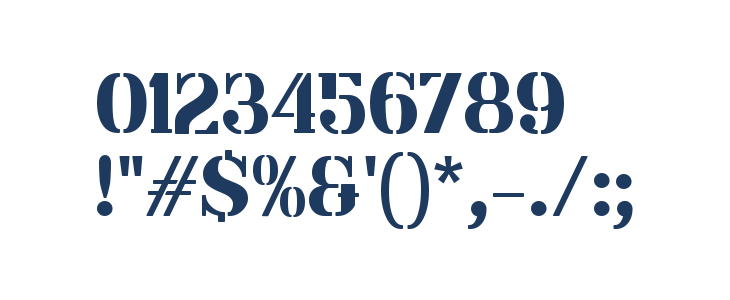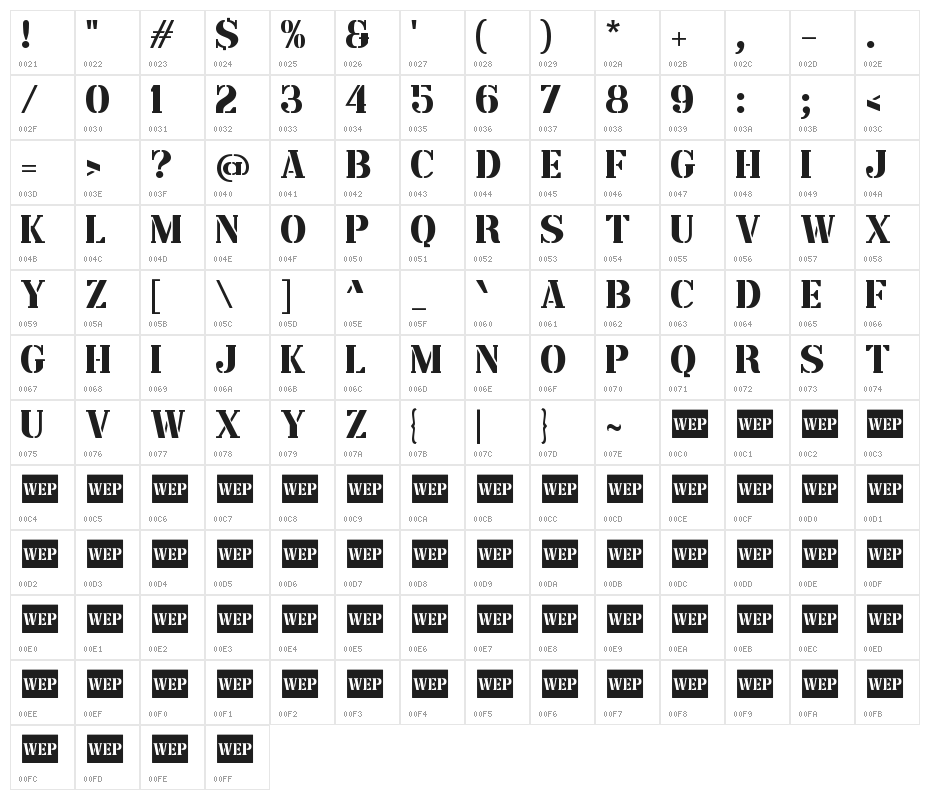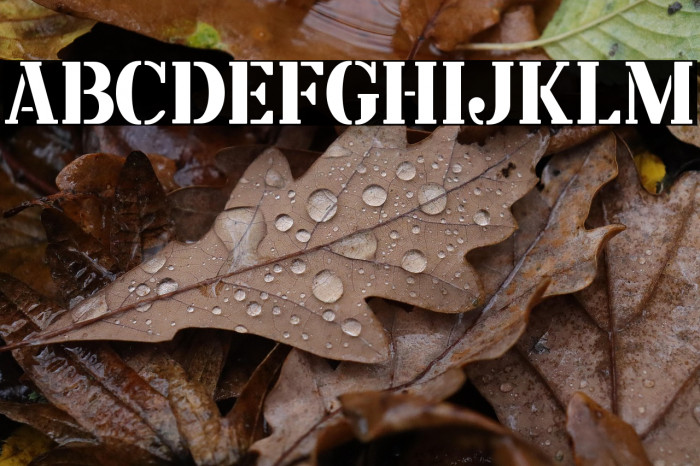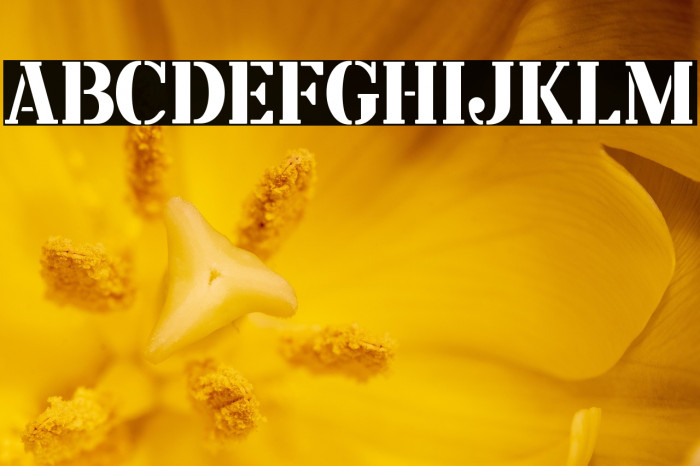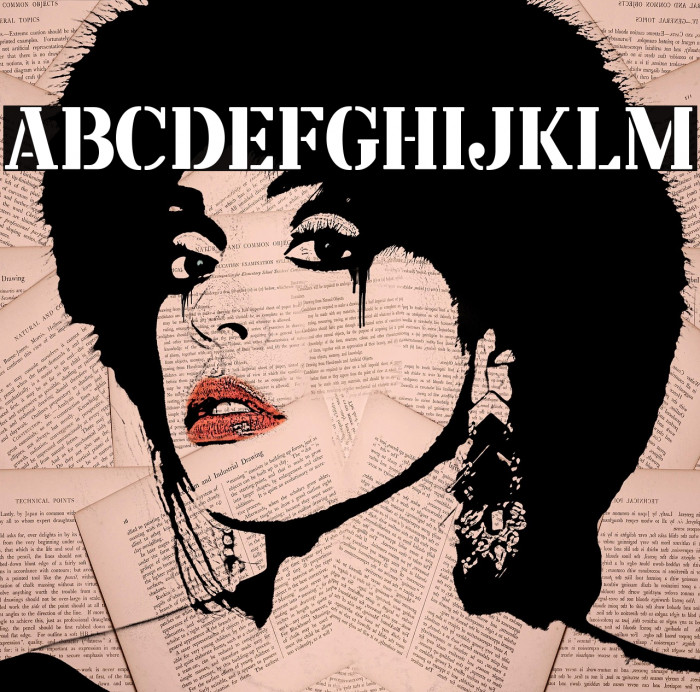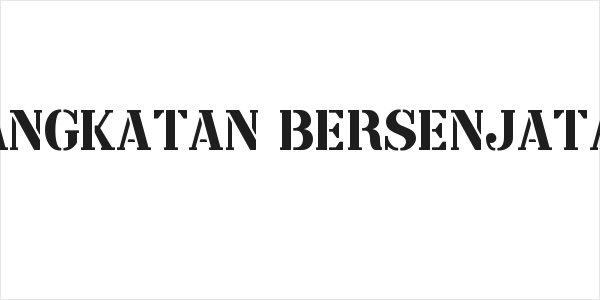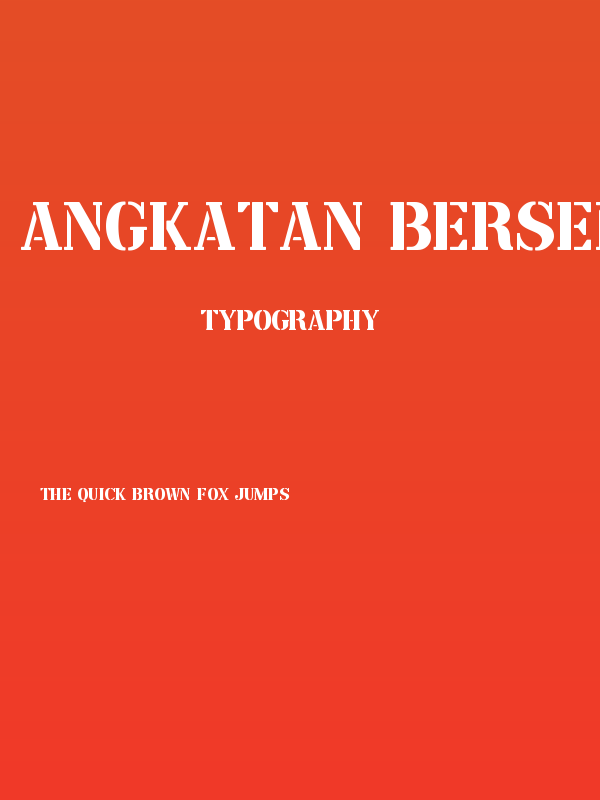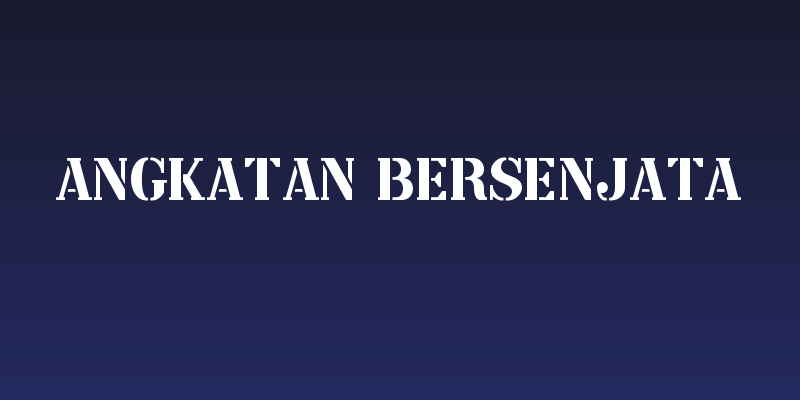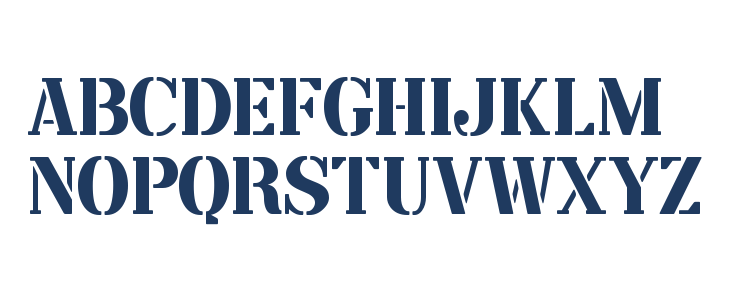
Angkatan Bersenjata Font
Angkatan Bersenjata Description
This font features bold, impactful characters with a distinct stencil-like appearance. The letters are characterized by thick, blocky strokes with occasional breaks, giving them a military or industrial feel. The uppercase letters are uniform in height, while the numerals and special characters maintain the same bold style, ensuring consistency across all elements. The design is both functional and decorative, making it suitable for attention-grabbing headlines or signage. Its robust nature suggests strength and authority, making it ideal for projects that require a commanding presence.
| Use Case | Headlines, Logos, Signage |
| Proposed Projects | Ideal for military-themed designs, industrial branding, posters, and signage. |